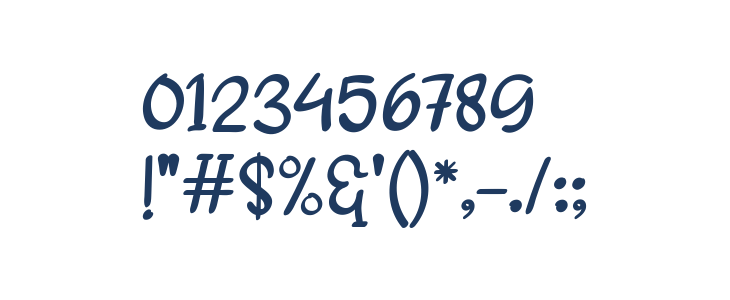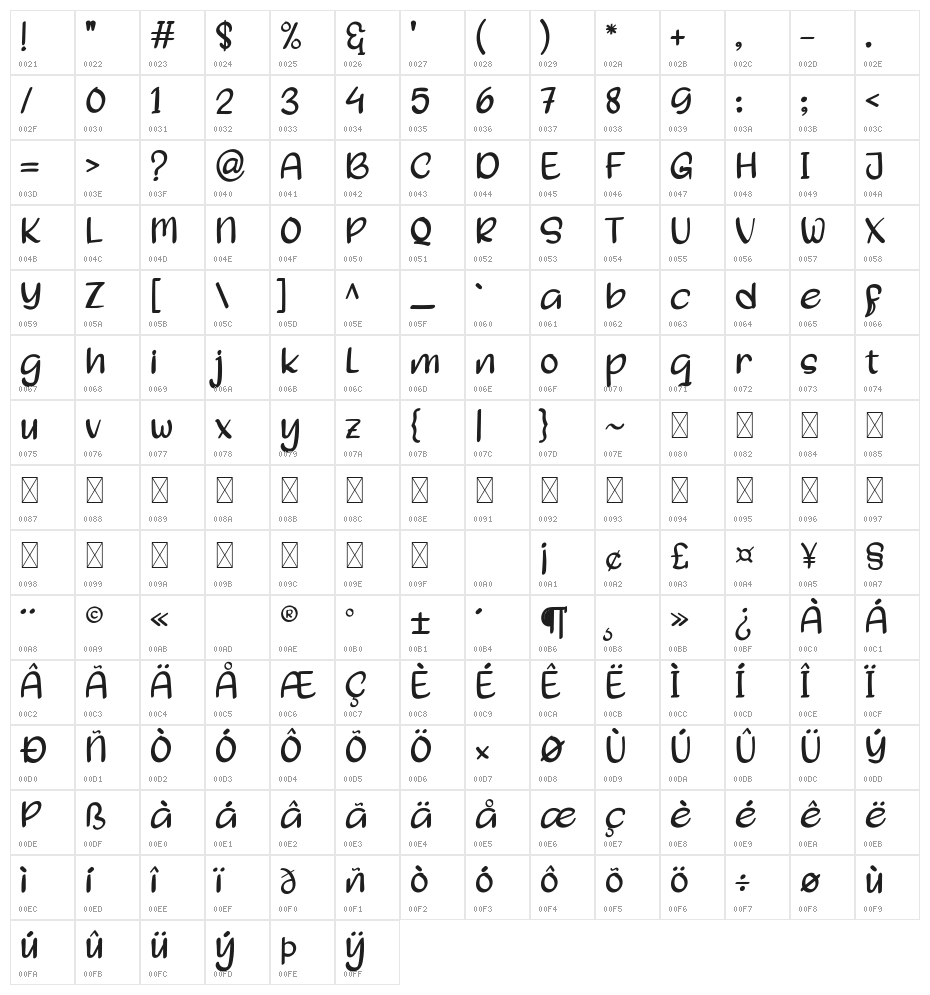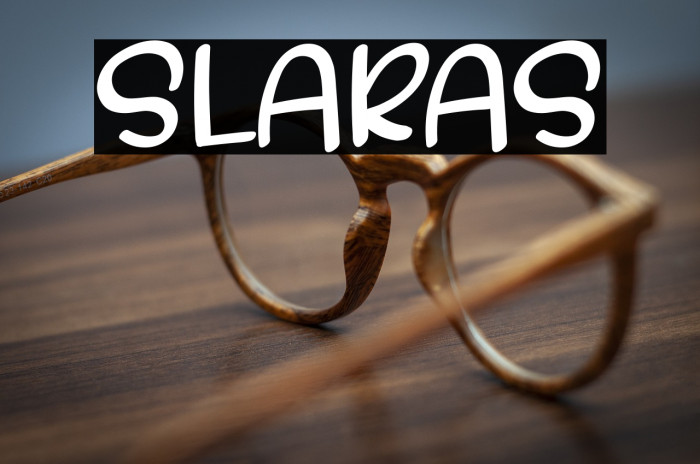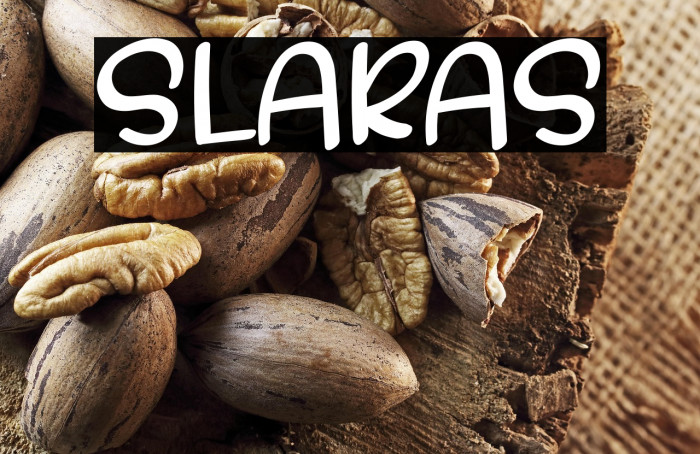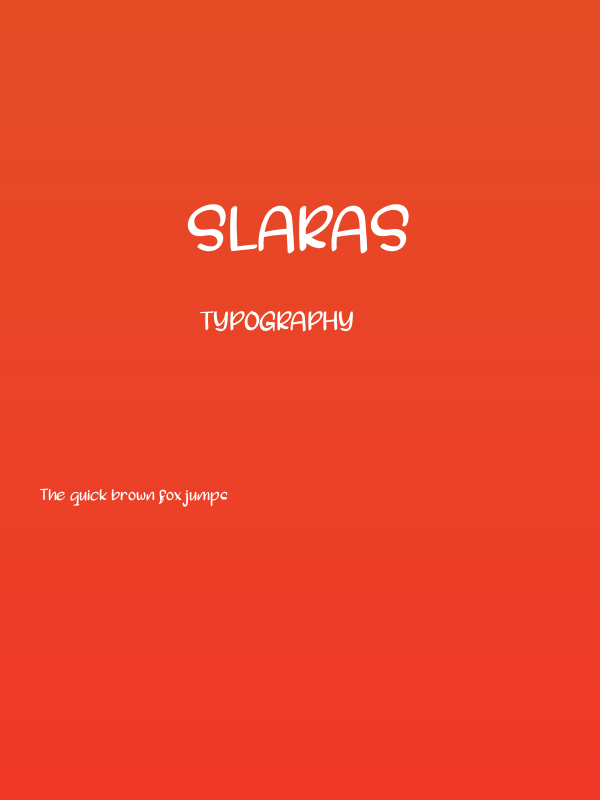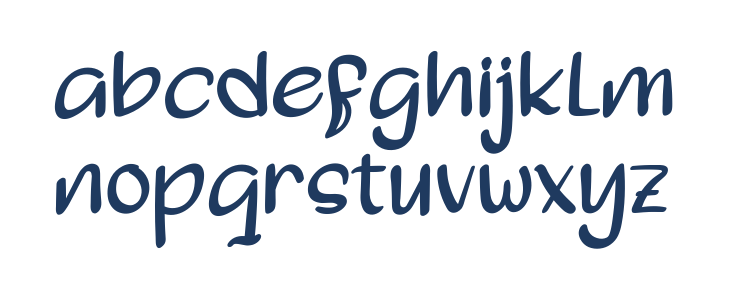
SLARAS Font
SLARAS Description
This font features a playful and casual handwritten style, characterized by its smooth curves and slightly irregular shapes. The uppercase letters are bold and rounded, giving a friendly and approachable feel. The lowercase letters maintain a consistent flow, with some letters like 'g' and 'y' having distinctive loops. Numbers are clear and legible, matching the overall style of the alphabet. Special characters are designed to complement the letters, maintaining the same playful aesthetic. The font's informal nature makes it suitable for creative and fun projects.
| Overall Style | Casual, Playful |
| Use Case | Headlines, Logos, Informal Text |
| Proposed Projects | Ideal for greeting cards, children's books, playful branding, and informal invitations. |